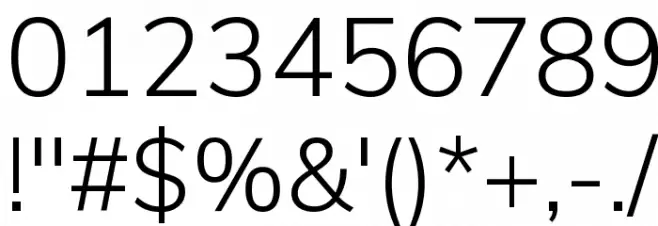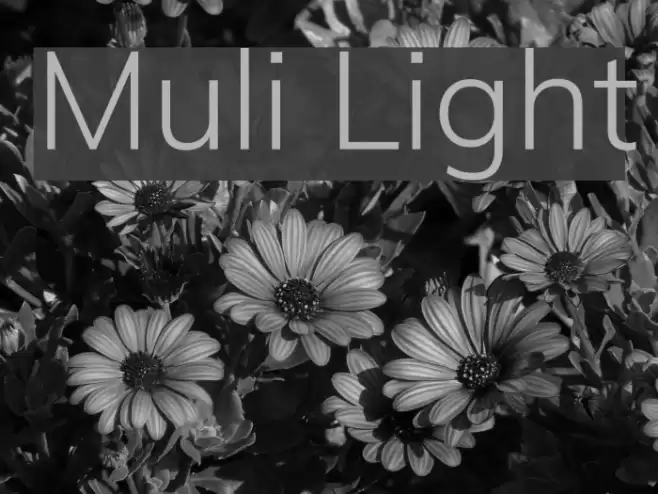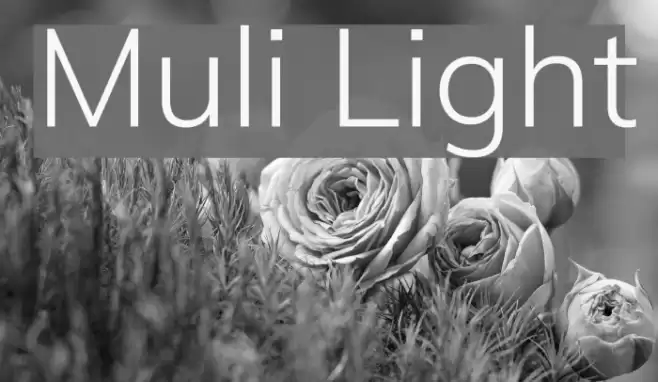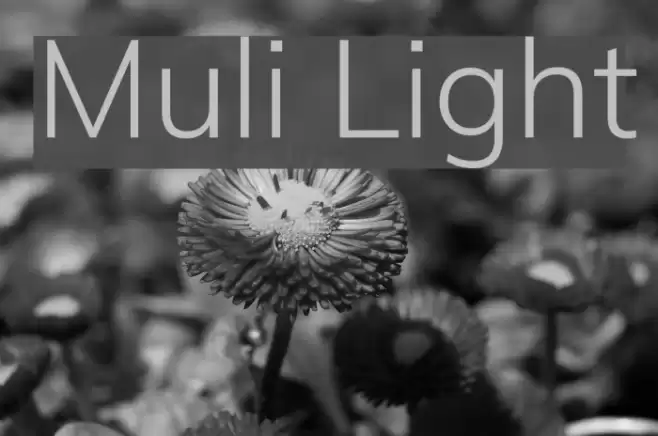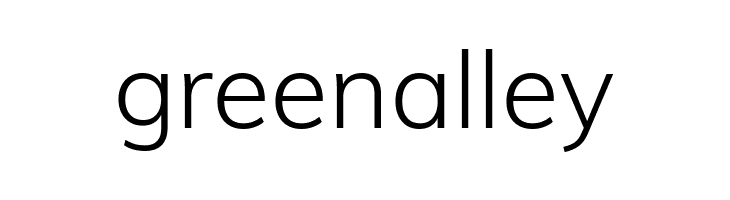
Muli Light Font
Muli Light Description
This font features a clean and modern sans-serif design with a light weight, making it ideal for minimalist and contemporary projects. The characters are evenly spaced with a normal width, providing excellent readability. The strokes are consistent with low contrast, giving it a sleek and uniform appearance. The uppercase and lowercase letters are well-proportioned, and the numerals are clear and distinct. Special characters are included, maintaining the overall aesthetic of the font. Its simplicity and elegance make it versatile for various design applications.
A modern, light, and clean sans-serif font with excellent readability.
• Proposed Projects: Suitable for web design, branding, corporate materials, and user interfaces.
• Category: Sans-Serif
• Weight: Light
• Width: Normal
• Character Spacing: Normal
• Contrast: Low
• Overall Style: Modern
• Use Case: Headlines, Body text, Logos